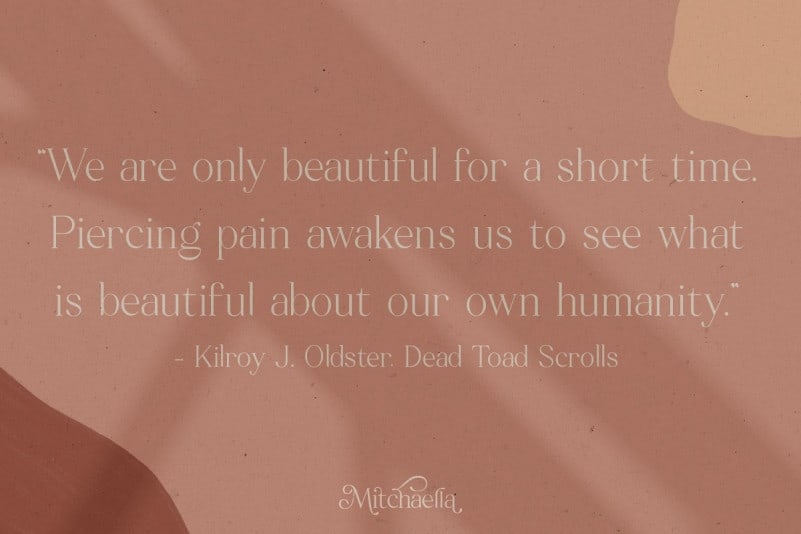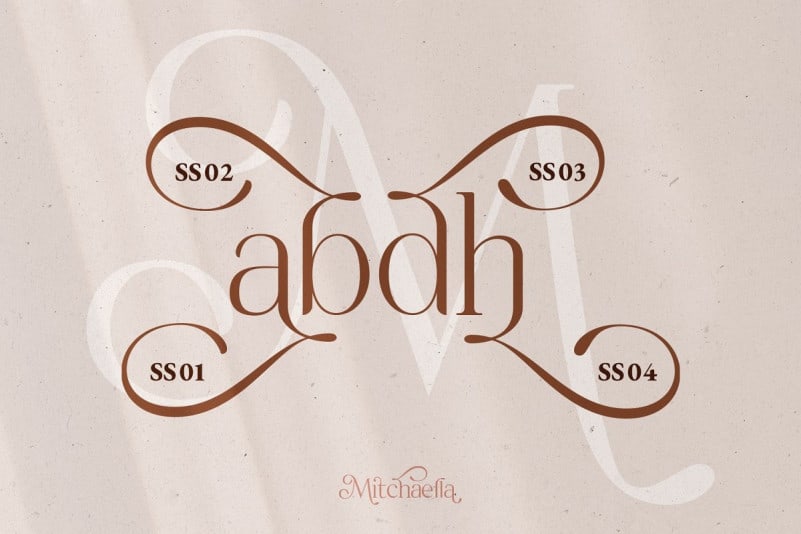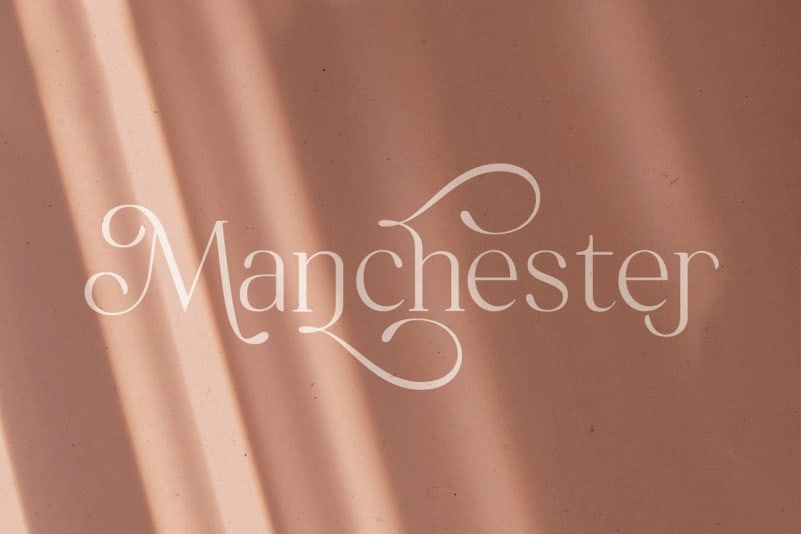
Mitchaella Luxury Serif Font is new serif font inspired by the good old past, but it still has a strong modern appearance. Made from font designer named Moovied Co. It’s a modern, unique and luxury serif typeface with many alternative characters, ornaments, multilingual support, ligatures.
Mitchaella Luxury Serif Font is a very useful font made for branding, logos, magazine imagery, wedding invitations, posters, fashion, packaging, website logos and more.